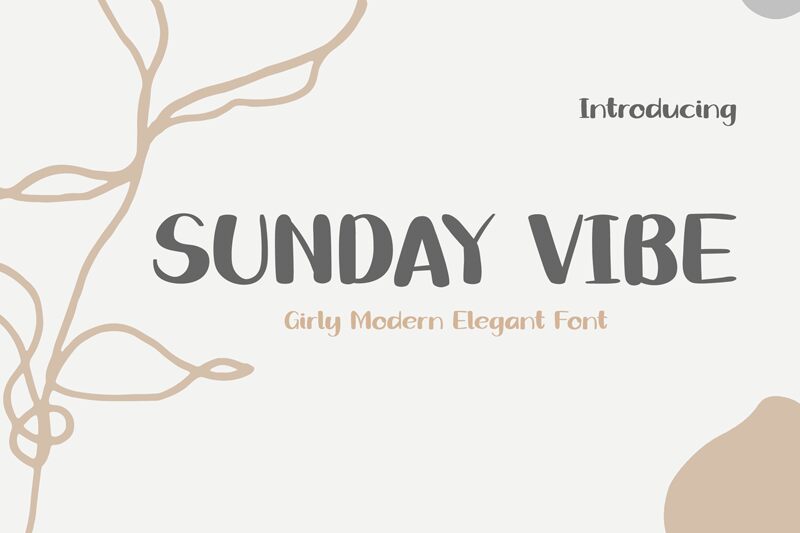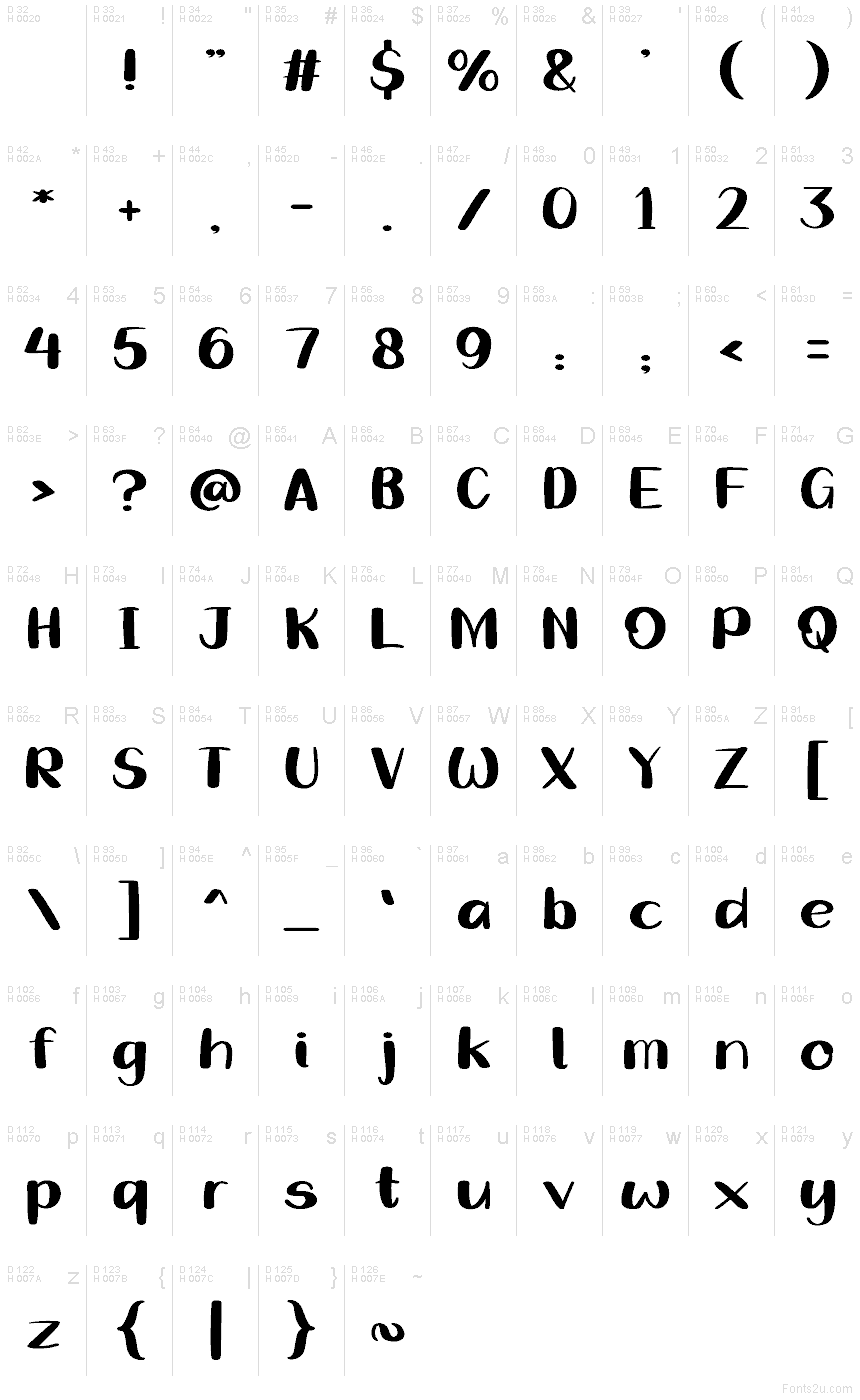
Sunday Vibe
Sunday Vibe font by Pinisiart is a free brush font that bursts with a casual feel and a smooth, graceful flow. It falls under the handwritten style yet it carries a contemporary aesthetic. Though designed for exceptional display, the letters cleverly make it readable in long word phrase combinations.
Use Sunday Vibe for logotype designs, branding projects, advertising campaigns, product packaging, or invitations. Or use it on labels and apparel projects either by itself or as an accent font with simple sans serifs and minimalist scripts to achieve an outstanding design balance. Save your favorite choice of Photoshop scripts to edit made projects later on if needed.